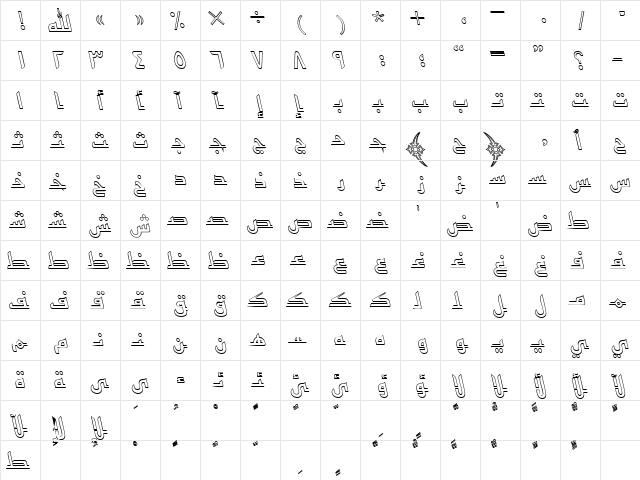
PersianKufiOutlineSSK Italic
Design Context for PersianKufiOutlineSSK Typeface
PersianKufiOutlineSSK brings ornamental detail and strong personality to headlines and identities, where visual impact matters more than quiet functionality. The slanted form adds forward momentum and visual energy.
Font Pairing: Pair with a clean neutral sans-serif for body copy to let PersianKufiOutlineSSK's character lead without overwhelming the composition.
Pro Tip: Use PersianKufiOutlineSSK exclusively at display sizes — it was designed to be seen, not read at length. Let a neutral companion handle body copy.